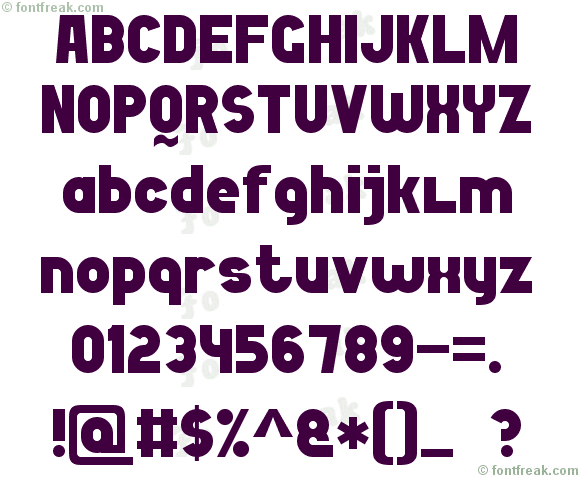
Bold Game Font 7
About Bold Game Font 7
Bold Game Font 7 by Style-7 is a striking display typeface that immediately captures attention with its robust character. This bold font showcases a sans-serif style, characterized by its thick stroke weight and minimal contrast, making it an excellent choice for high-impact design projects. The letters are well-spaced, ensuring legibility even at larger sizes, which enhances its usability in a variety of contexts. The font's playful design is accentuated by rounded edges, giving it a modern yet approachable feel—perfect for appealing to a younger audience or those involved in gaming and entertainment.
This font is particularly well-suited for use cases such as video game branding, promotional material for tech events, and merchandise designs that require an eye-catching and energetic look. Additionally, it can be effectively employed in social media graphics, posters for gaming tournaments, or even as a headline font for websites dedicated to gaming reviews and news. Its versatility lends itself well to graphic designers, small business owners in the tech industry, and content creators looking to make a distinct impression.
What sets Bold Game Font 7 apart from other fonts is its unique blend of boldness and playfulness, making it not just a typeface, but a statement. Its ability to convey excitement and energy makes it an ideal choice for projects aiming to engage a dynamic audience. With the Bold Game Font 7 font free download available, designers and creators can easily incorporate this standout font into their work without any financial commitment. Whether you're designing for digital platforms or print, this font provides the perfect balance of style and functionality, ensuring your projects stand out in a crowded marketplace.